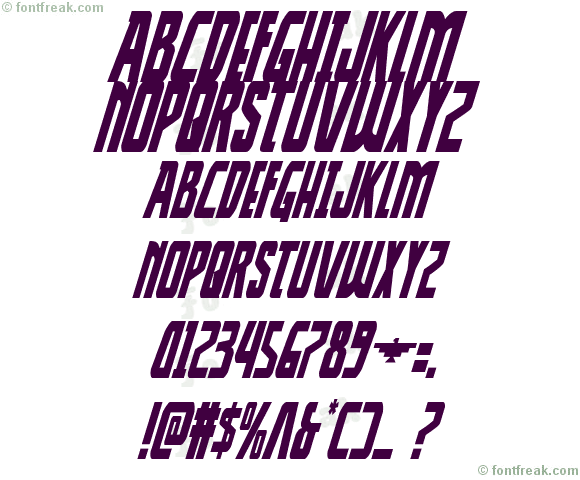
Thunder-Hawk Drop Condensed Italic
About Thunder-Hawk Drop Condensed Italic
Thunder-Hawk Drop Condensed Italic is a striking display font designed by Daniel Zadorozny, characterized by its bold, condensed style that captures attention effortlessly. This font belongs to the decorative category, making it an ideal choice for projects that require a strong visual impact. Its unique design features sharp angles and dynamic lines, which convey a sense of energy and movement. The stroke weight is consistent, providing a sturdy appearance, while the italic slant adds a touch of flair, enhancing its overall personality.
The Thunder-Hawk Drop Condensed Italic font is particularly suitable for a variety of applications. It works exceptionally well in creating eye-catching movie posters, where its dramatic style can capture the essence of action and adventure. Additionally, it is perfect for branding and logo design, especially for businesses in the sports and entertainment sectors. This font can also elevate restaurant menus, giving them a modern and stylish look that appeals to a younger audience. Furthermore, it is an excellent choice for promotional materials, such as flyers and banners, where bold statements are essential.
Target audiences for this font include graphic designers looking to make a statement in their work, small business owners wanting to create a memorable brand image, and content creators seeking to enhance their projects with a distinctive typographic style.
What sets Thunder-Hawk Drop Condensed Italic apart is its ability to blend functionality with bold aesthetics. Its unique design not only grabs attention but also communicates a sense of movement and excitement, making it an indispensable addition to any designer's toolkit. For those interested, the Thunder-Hawk Drop Condensed Italic font free download is readily available, allowing you to incorporate this striking font into your next creative project.